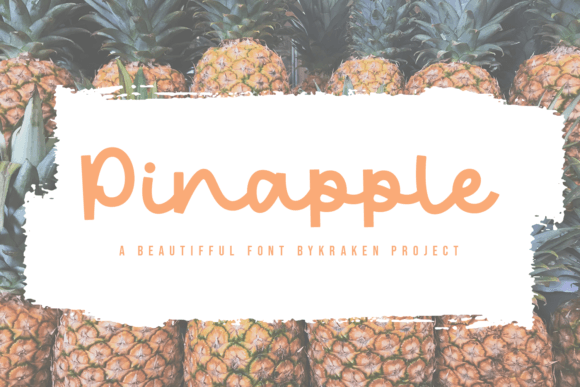
In a world craving authenticity and charm, Pinapple Font, a remarkable script font from Kraken.Project, emerges as the embodiment of elegance, ready to transform your creative visions into breathtaking realities. With its fluid strokes and delicate curves, Pinapple eloquently dances across the digital canvas, evoking emotions and capturing hearts.
Immerse yourself in the captivating world of Pinapple, where every letter is a work of art, meticulously crafted to convey a sense of romance and allure. Its graceful lines and harmonious rhythm create a visual symphony that captivates the eyes and ignites the imagination. Whether you're a seasoned designer or a creative enthusiast, Pinapple is the perfect font to elevate your designs, adding a touch of sophistication and charm that will leave a lasting impression.
With Pinapple as your font of choice, you'll unlock a world of creative possibilities. Craft wedding invitations that exude elegance and romance, love letters that speak volumes without uttering a single word, or design projects that radiate a timeless charm. The versatility of Pinapple knows no bounds, allowing you to weave your creative magic across a wide spectrum of projects.
But Pinapple is more than just a font; it's an experience that transports you to a realm of creativity and inspiration. Its beauty is undeniable, its charm irresistible, and its ability to transform words into art unparalleled. Embrace the magic of Pinapple and embark on a creative journey like no other.